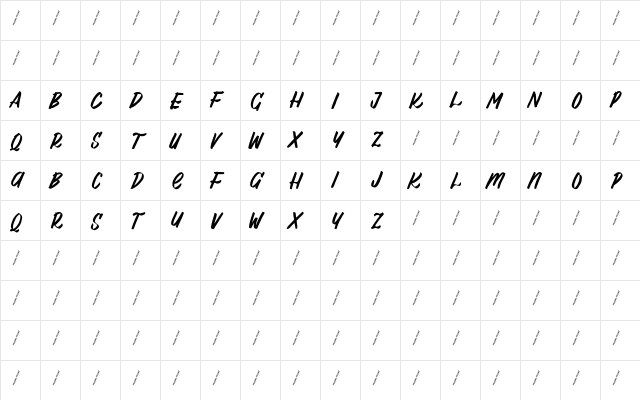
Al_Lebrush_PersonalUseOnly Regular
Design Context for Al_Lebrush_PersonalUseOnly Typeface
Al_Lebrush_PersonalUseOnly flows with the natural rhythm of handwritten lettering, making it ideal for designs that call for warmth and personal expression.
Font Pairing: Combine Al_Lebrush_PersonalUseOnly with a simple geometric sans for maximum contrast — the tension between flowing curves and clean structure is a classic typographic pairing.
Pro Tip: Pair Al_Lebrush_PersonalUseOnly with a clean sans-serif for supporting text. The contrast between fluid script and geometric structure creates an elegant typographic hierarchy.